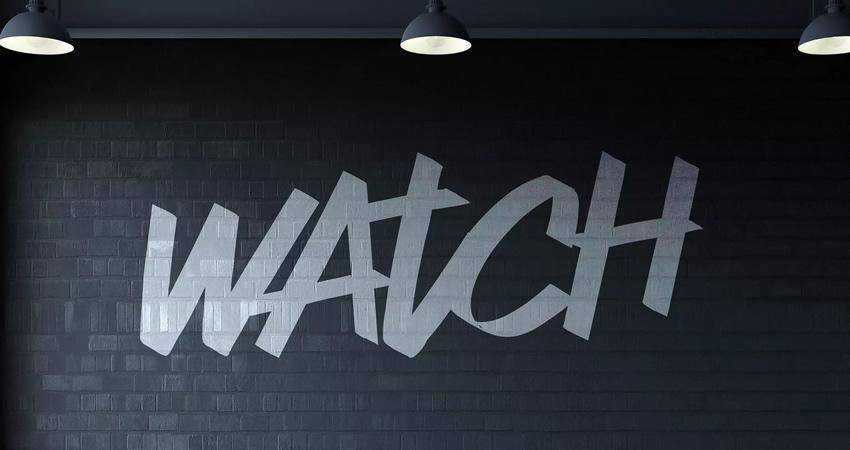
Graffiti, with its roots in urban culture, makes its mark on design with its unique style and expressive power. Its vibrant colors, bold lines, and power to express strong messages make it a popular design style.
For designers, graffiti fonts offer an urban aesthetic that can bring a project to life in ways few other elements can. They draw inspiration from the streets, reflecting the boldness of the wall art in many cities worldwide.
They can transform a simple message into a visual experience with layers of depth and emotion. Whether for branding, advertising, or digital art, graffiti fonts means embracing urban culture.
Hosp Graffiti Font
Hosp is an excellent choice for any modern project that needs a bold and brave aesthetic. This graffiti font includes uppercase letters, numbers, and punctuation characters. It’s free for personal use.
Sprite Graffiti Font
This font comes in three different styles, and you can use it when you need that graffiti look but still want to maintain legibility. The font is free for personal and commercial use and has desktop and web font licenses.
MostWanted Graffiti Font
The MostWanted Graffiti font is an urban font with both uppercase and lowercase letters. You can mix and match them to create a unique design.
Tag Type Free Font
Tag Type features uppercase and lowercase letters. It is free to download and use in personal projects. The font also includes punctuation and Cyrillic characters.
BlowBrush Font
BlowBrush is a handwritten, marker-style font that’s perfect for any project that needs boldness. The free font has a complete set of uppercase characters, numbers, 22 ligatures, and a selection of special characters.
Graffiti Front Font
This free font is an excellent choice for movie poster designs. It includes a complete set of characters and can be used in personal and commercial projects.
The Graffiti Font
This Grafitti font is available in both black and white and colored versions. You can also download it as a PNG file and use it on personal and commercial projects.
Don Graffiti Font
This font has been inspired by old-school graffiti. It’s free for personal and commercial projects and is an excellent choice for movie posters, displays, magazine covers, and headlines.
Brushed Font
The Brushed Font is free for personal use and includes uppercase letters, numbers, and punctuation characters.
Humblle Rought Font
This graffiti font includes regular and slanted versions. It has a rough look and feel, so it’s an excellent choice for retro design projects. It includes standard and alternate character sets and multilingual support.
Marker No2Hun Font
The Marker No2Hun font is free for personal use and includes uppercase and lowercase letters, numbers, and punctuation characters. Some alternates are also available.
Fusterd Brush Font
The Fusterd Brush font has an elegant look and feel. It can be used for personal and commercial projects. The font has uppercase and lowercase letters, numbers, and stylistic swashes.
JuneBug Font
JuneBug is a playful, graffiti-style font perfect for any design project that’s aimed toward a younger audience. It includes uppercase and lowercase letters, numbers, and punctuation. The font is free for personal use.
Vindica Rebel Brush Typeface
The Vindica Rebel Brush is an uppercase font with matching numerals and punctuation characters. It’s an excellent choice for apparel or poster design.
Hoodson Script
Hoodson Script is a bold graffiti font that would be an excellent choice for poster, headline, or apparel design. It’s free for personal use.
A Streetwise Attitude
Graffiti fonts bring a rebellious and artistic feel to your design projects. Their bold strokes offer a brave choice for designers looking to break away from convention.
They add a streetwise attitude and will transform typography into a form of art that captures attention and amplifies messages with an edgy style.